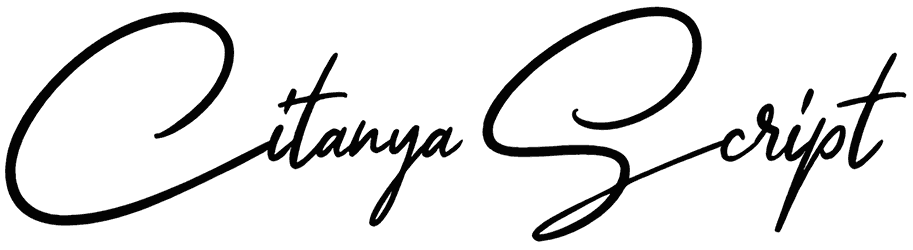
Citanya Script Font
The soft, as a romantic artwork, and the classic, as an old letter, would be the best possible description for a magical script font like Citanya Script that comes with a cursive style and rounded characters.
Due to its sophisticated texture, reading some of this handwritten font‘s characters would be a little bit tricky. It is capable of adding a sense of drama, gorgeousness, and precision to business cards, billboards, product packaging, and social media posts.